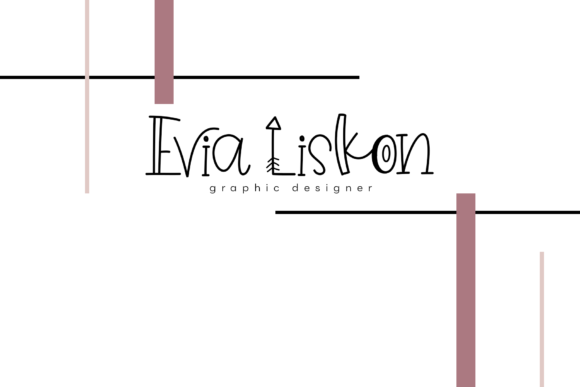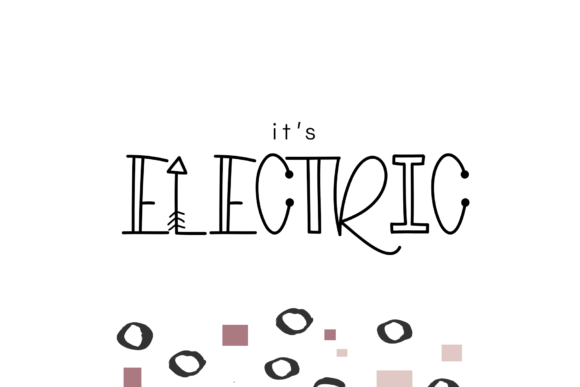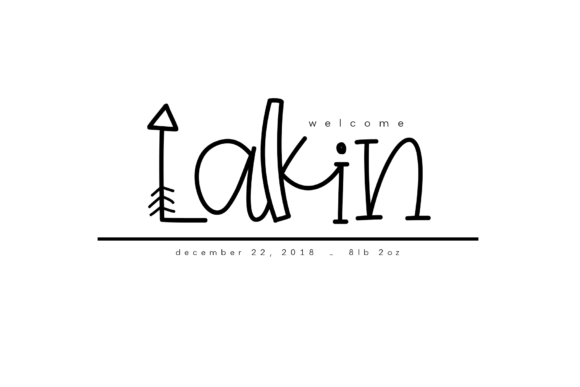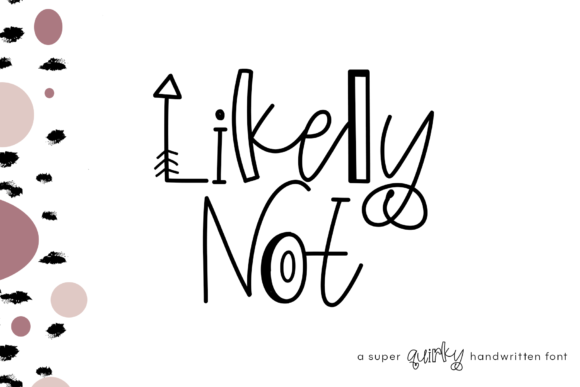
Introduction to Likely Not Font
Likely Not is a fun and quirky font full of personality.
It will inspire you with its mismatched letters .
Likely Not Font offers exceptional quality and versatility, making it a valuable addition to your design toolkit. Whether you’re creating for personal projects or commercial use, Likely Not Font delivers professional results.